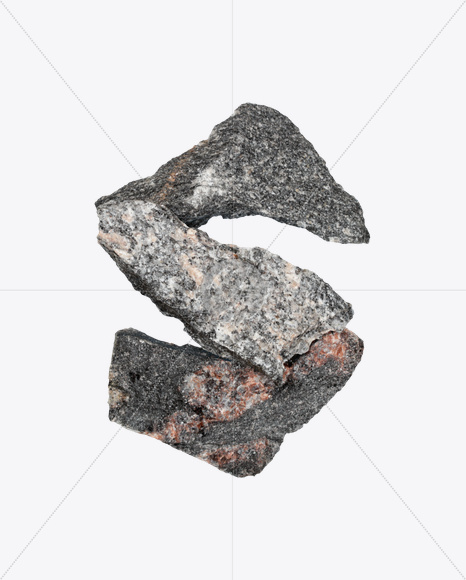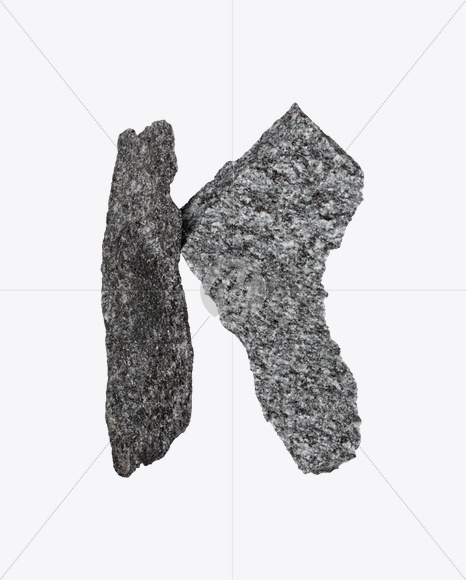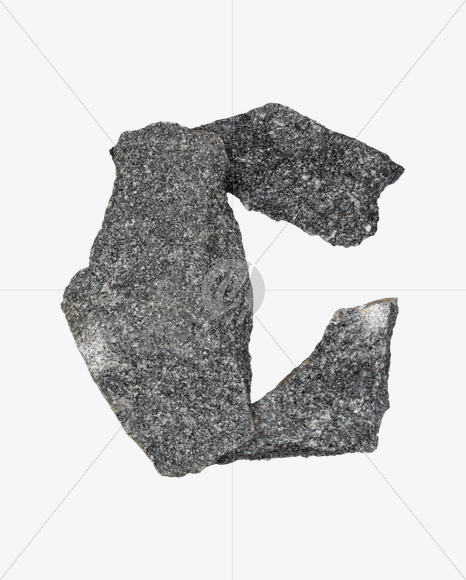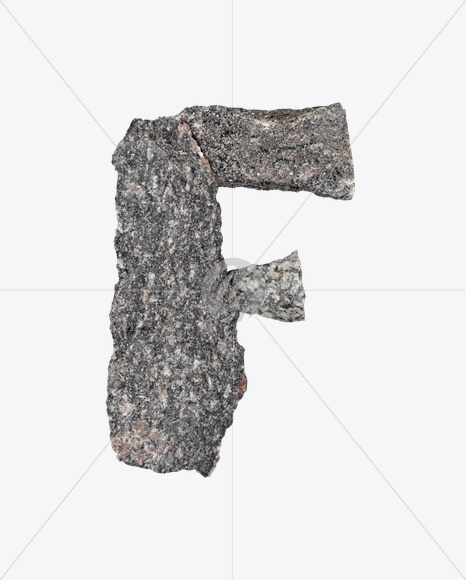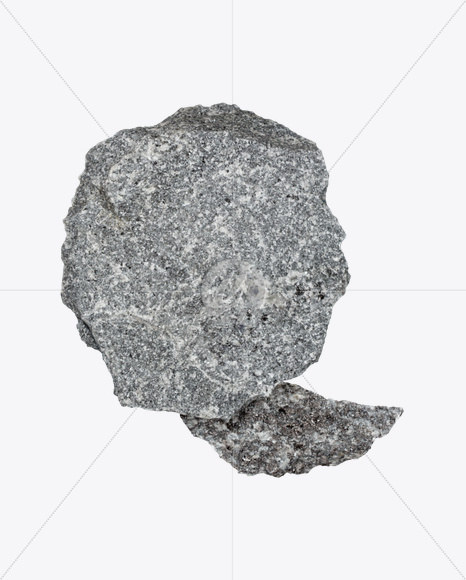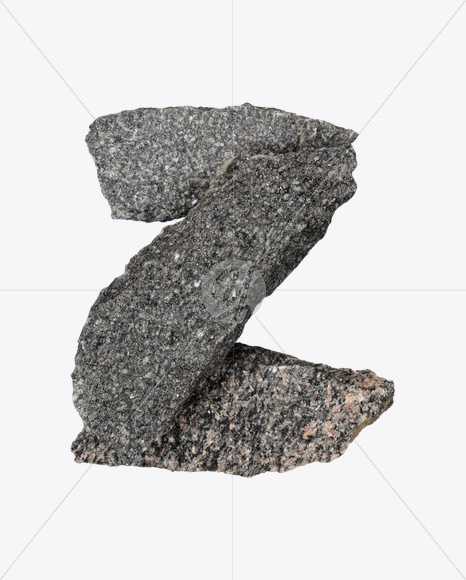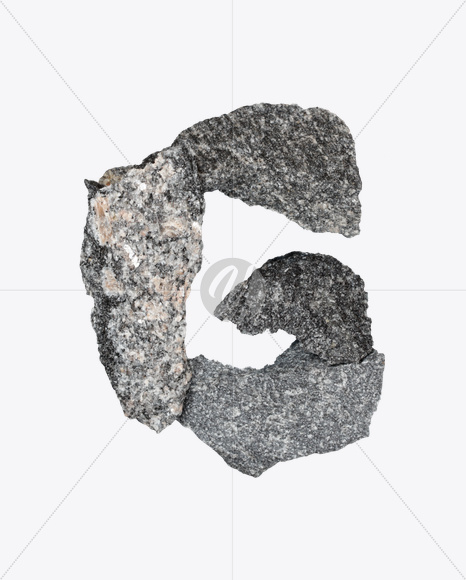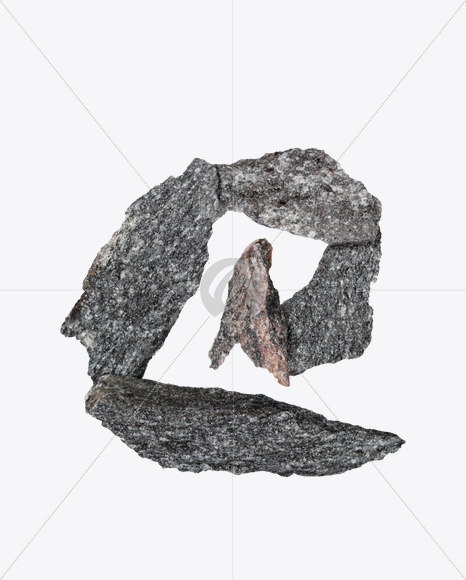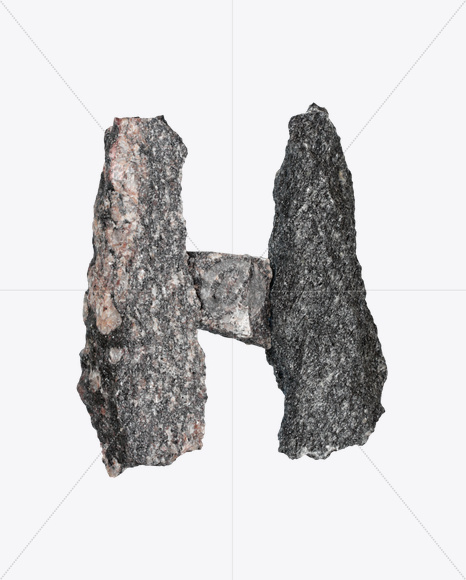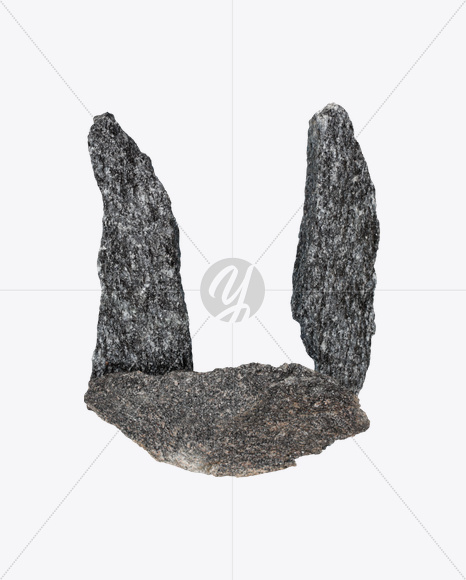
Sometimes the unreal is more powerful than the real, because nothing is as perfect as you can imagine. Black Granite Font is something to remain in your imagination forever. Letters in granite lasts in perpetuity.